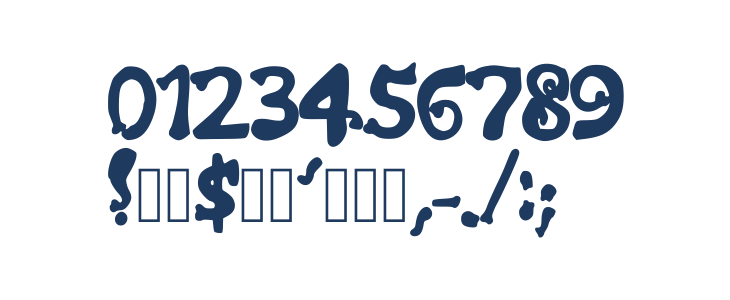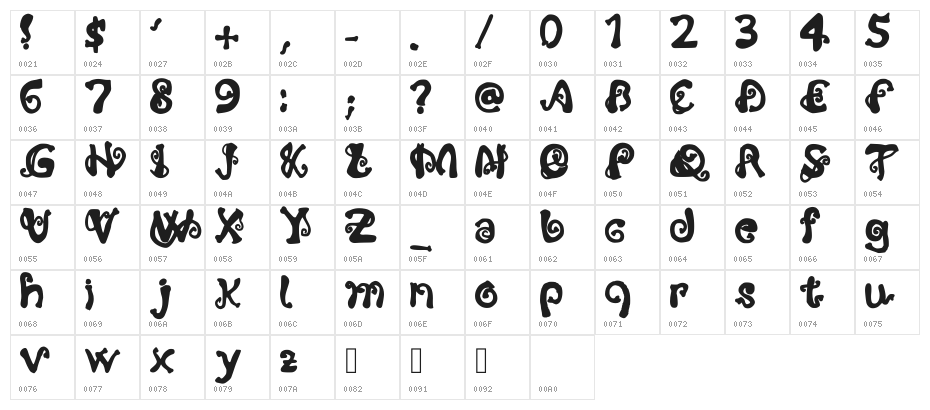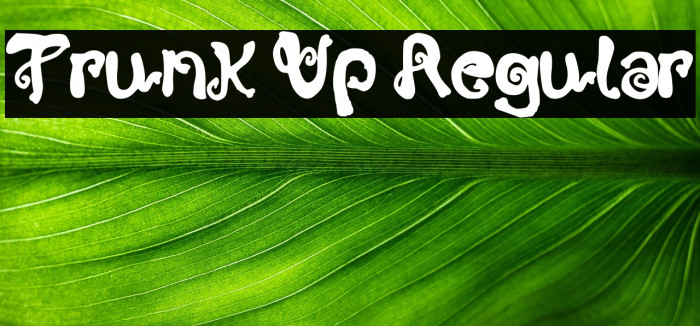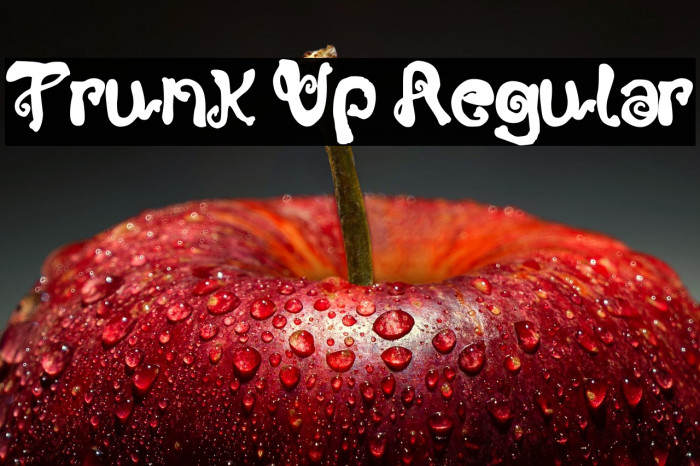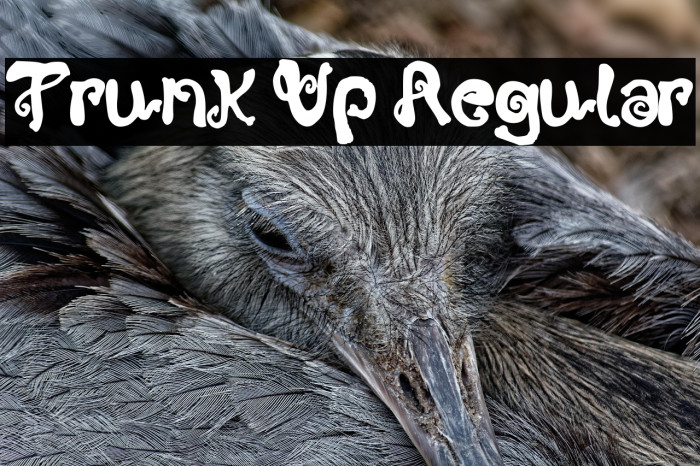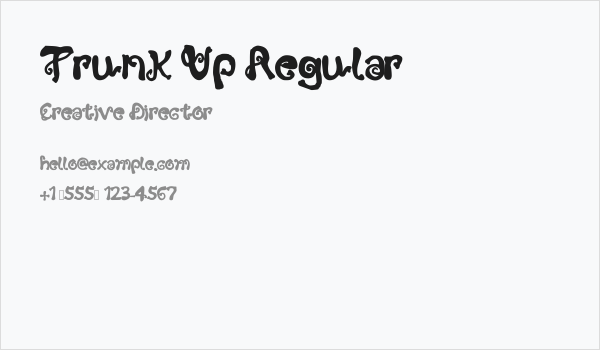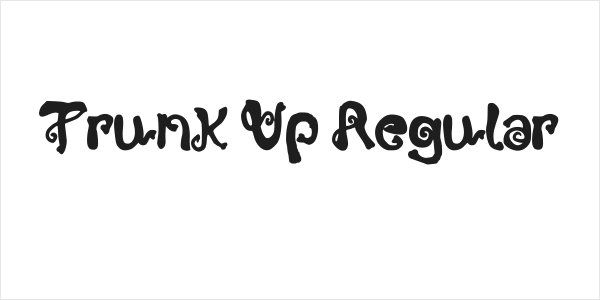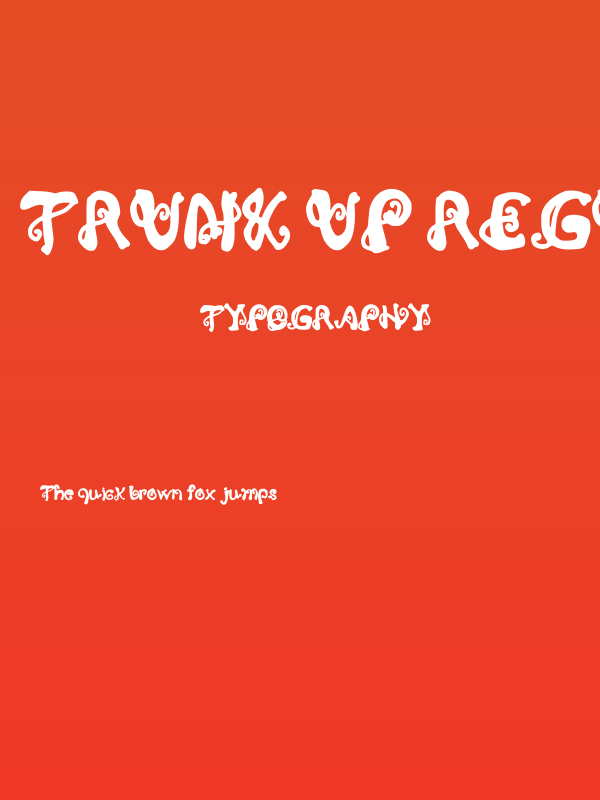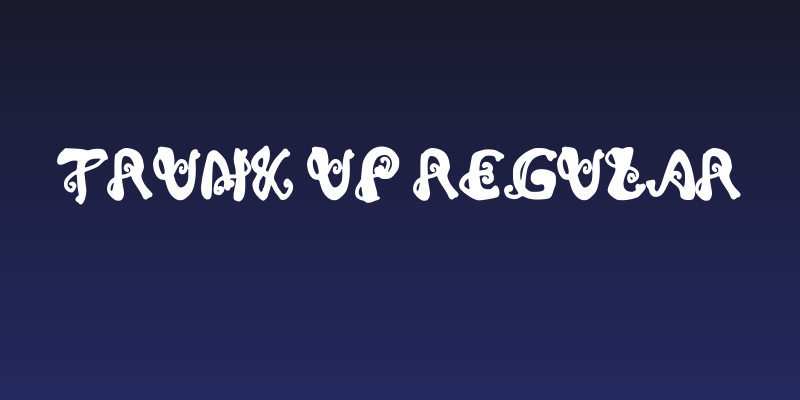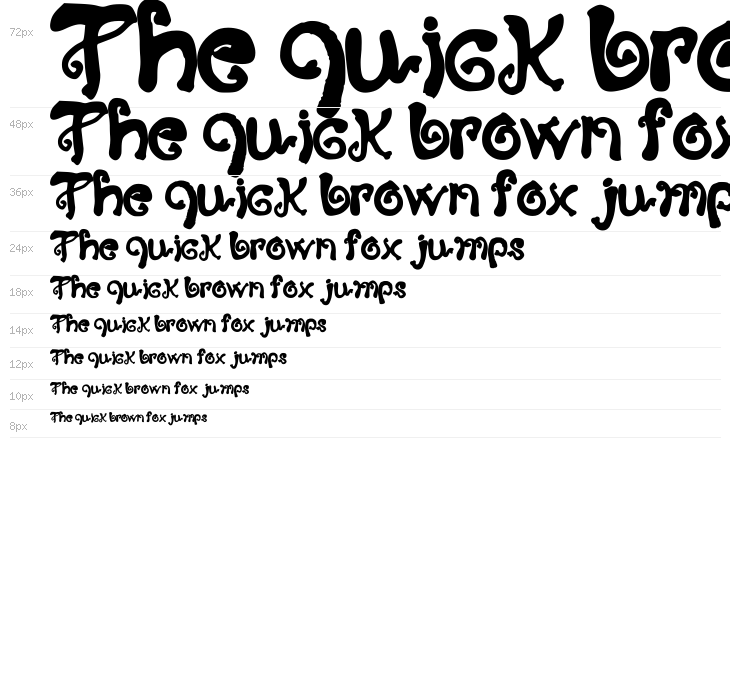
Trunk Up Regular Font
Trunk Up Regular Description
This playful and whimsical font features bold, rounded characters with unique, swirling embellishments that give it a lively and animated appearance. The letters are thick and substantial, with a consistent weight that makes them stand out. Each character has a distinctive flair, with curls and loops that add a sense of movement and fun. The numbers and special characters maintain this playful style, ensuring a cohesive look across all elements. This font is ideal for projects that require a touch of creativity and joy, making it perfect for children's books, playful branding, or any design that seeks to capture a sense of fun and imagination.
| Proposed Projects | Children's books, playful branding, creative posters, party invitations. |